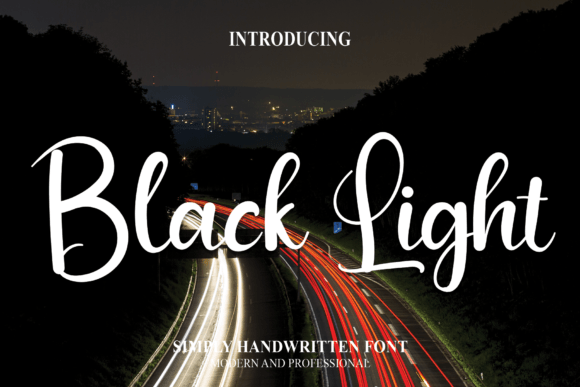
The Ultimate Guide to Black Light Font: A Fun and Friendly Handwritten Font
I’ll never forget the time I was working on a project for a client’s birthday party invitation. I had the design concept all figured out, but I was stuck on finding the perfect font. I wanted something fun, friendly, and playful, but also elegant and sophisticated. That’s when I stumbled upon the Black Light Font. ✨ It was love at first sight! In this article, I’ll share my experience with this amazing font, its features, and how to make the most of it in various design platforms.
An Honest Review of Black Light Font
What I Love About Black Light Font
• ✨ Unique and playful style: Black Light Font has a distinctive handwritten look that’s perfect for crafts, digital design, presentations, or creating greeting cards.
• ✅ Highly versatile: This font can be used for various occasions, from birthday parties to weddings, and even for everyday design projects.
• 💕 Easy to read: Despite its playful nature, Black Light Font is surprisingly easy to read, making it perfect for body text or headings.
• 🎨 Great for creative projects: This font is ideal for designers, crafters, and creative hobbyists who want to add a personal touch to their work.
While Black Light Font is an amazing font, there are a few things to keep in mind: 🤔
• ⚠️ Limited use in formal designs: Due to its playful nature, Black Light Font might not be the best choice for formal designs, such as business presentations or official documents.
• ⚠️ Some letters may appear similar: A few letters, like “I” and “l”, or “b” and “d”, may appear similar, which can make reading more difficult if not used carefully.
The Backstory of Black Light Font
Black Light Font was designed with the intention of creating a fun and friendly handwritten font that’s perfect for everyday design projects. The designer aimed to create a font that’s both playful and elegant, making it suitable for various occasions and design applications.